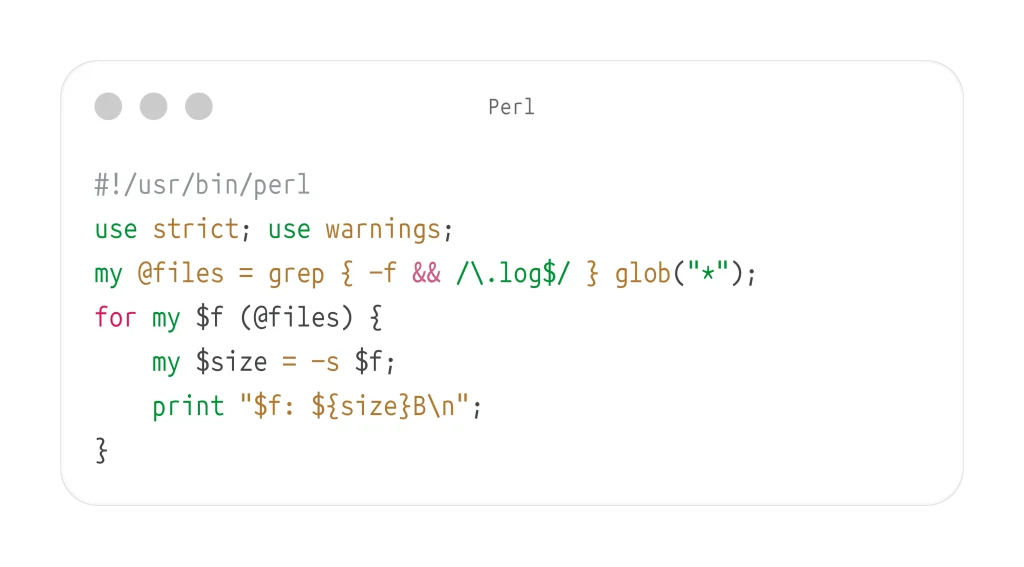
Myna is a free, open-source monospace font created for developers and programmers.
It addresses the common typographical frustration of mismatched, poorly aligned symbols in code editors.
This OFL-licensed font treats symbols as first-class glyphs alongside alphanumeric characters, bringing visual harmony to your programming workflow.
Features
- Symbol-first design philosophy treating ASCII symbols as primary design elements
- Near-perfect multi-character alignment for sequences like
->,>>=,=~, and:: - Balanced visual weight maintaining consistent density against code text
- Minimalist geometric forms for quotes, commas, and brackets
- Clear character distinction between easily confused characters like
1 l I |and0 O o - Language-aware design optimizations for Perl, Haskell, C, Rust, and 8+ other languages
- Single-weight simplicity focused on core programming readability
Use Cases
- Rapid code review sessions where visual clarity helps quickly identify syntax patterns and potential errors across multiple files
- Technical documentation and code snippets for blogs, tutorials, or educational materials requiring professional, readable formatting
- Client demonstrations and screen shares where clean, distinctive typography makes your code appear more polished and accessible
- Terminal and editor customization for developers seeking reduced eye strain during extended programming sessions
- Accessibility-focused coding environments where clear character differentiation helps prevent reading errors